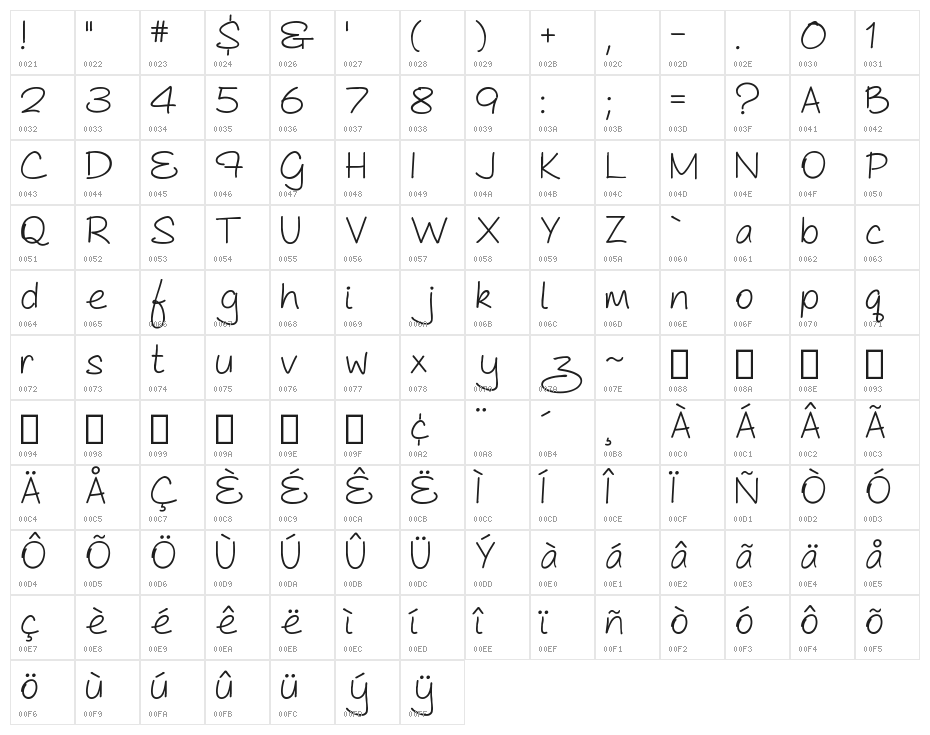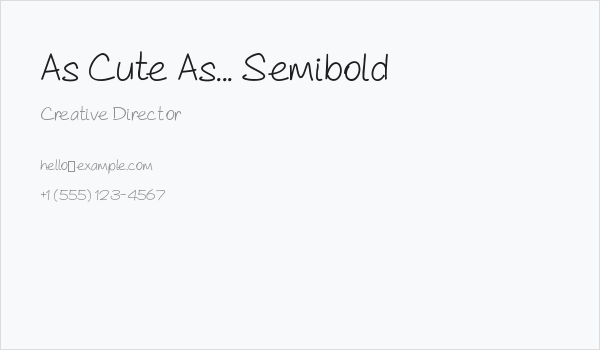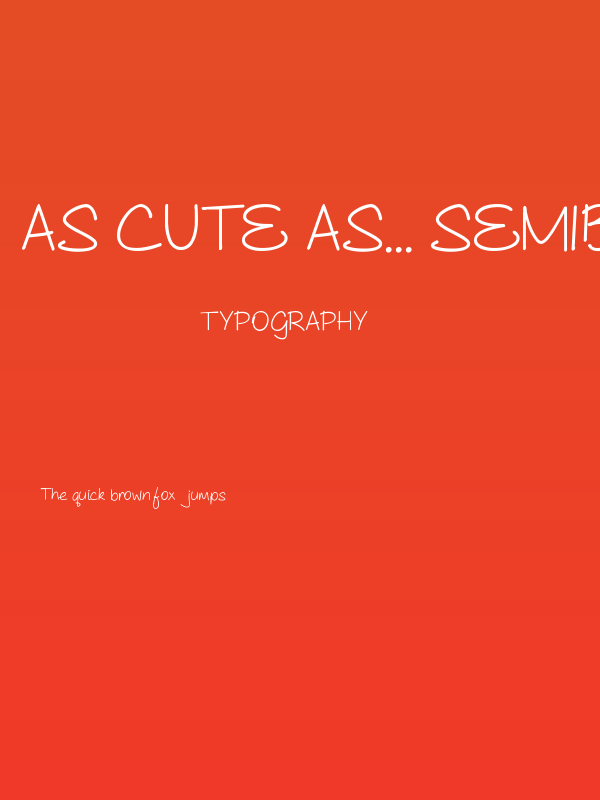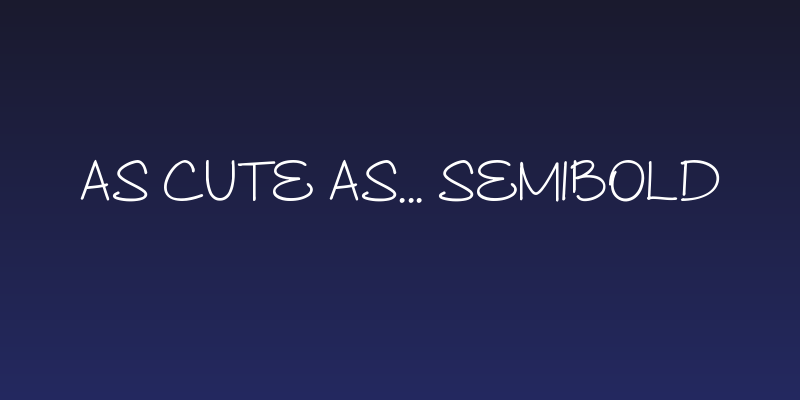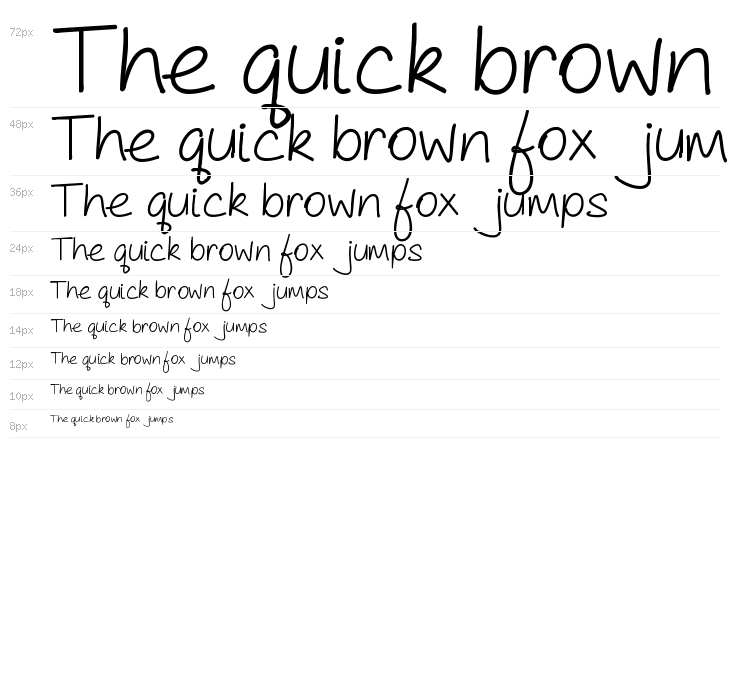
As Cute As... Semibold Font
As Cute As... Semibold Description
This playful and whimsical font features a handwritten style with smooth, flowing curves and a casual appearance. The letters are slightly slanted, giving it an informal and friendly vibe. The uppercase letters maintain a consistent height, while the lowercase letters have a more varied baseline, adding to the font's charm. The numerals are rounded and align well with the overall style, while the special characters are creatively integrated, maintaining the font's cohesive look. This font is ideal for projects that require a touch of personality and warmth.